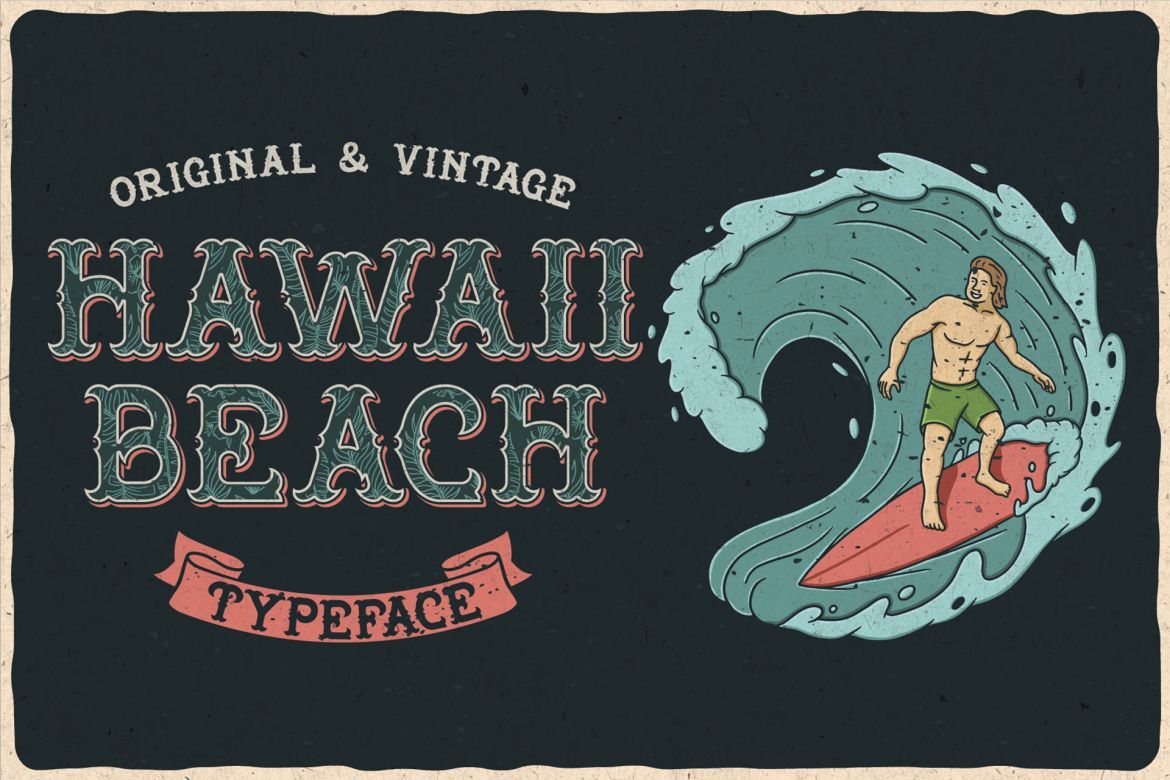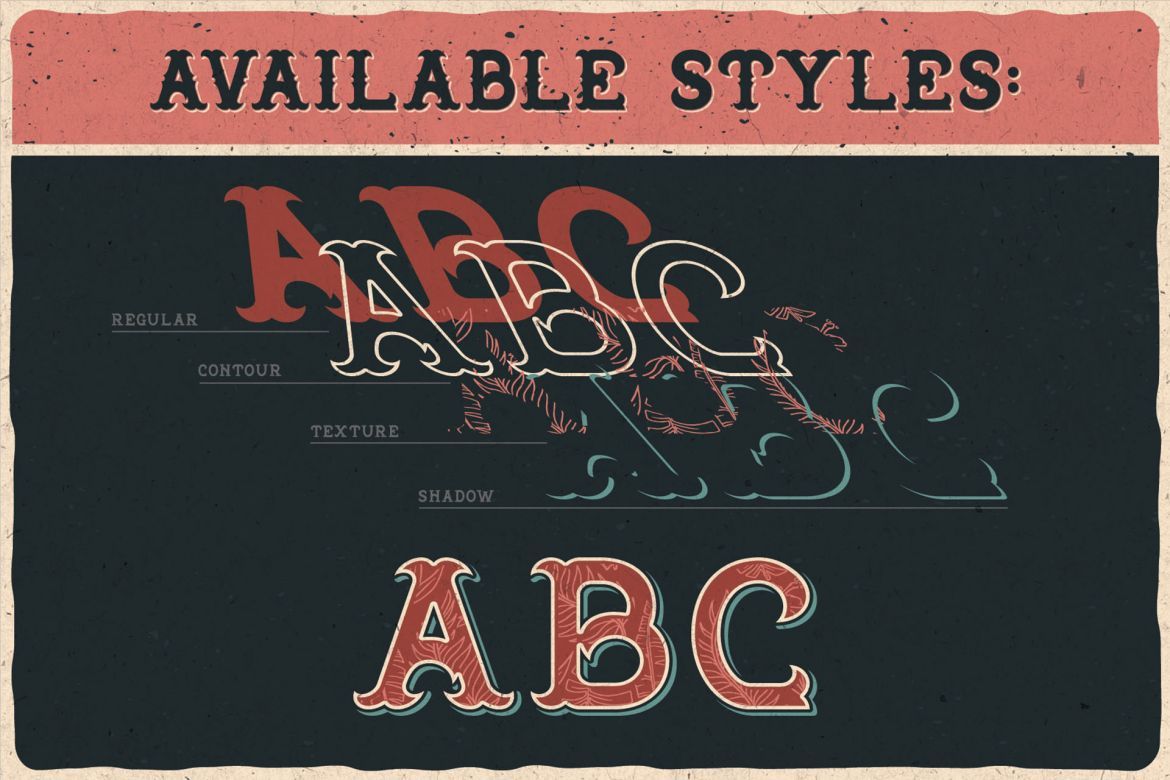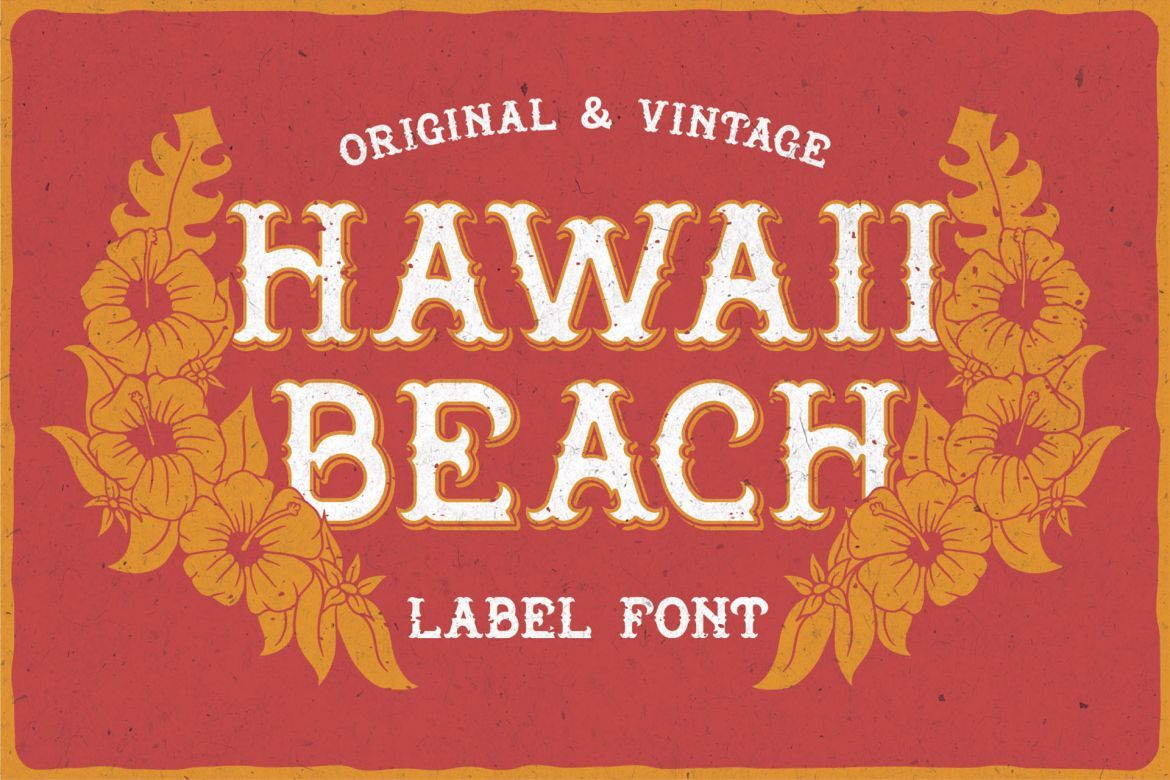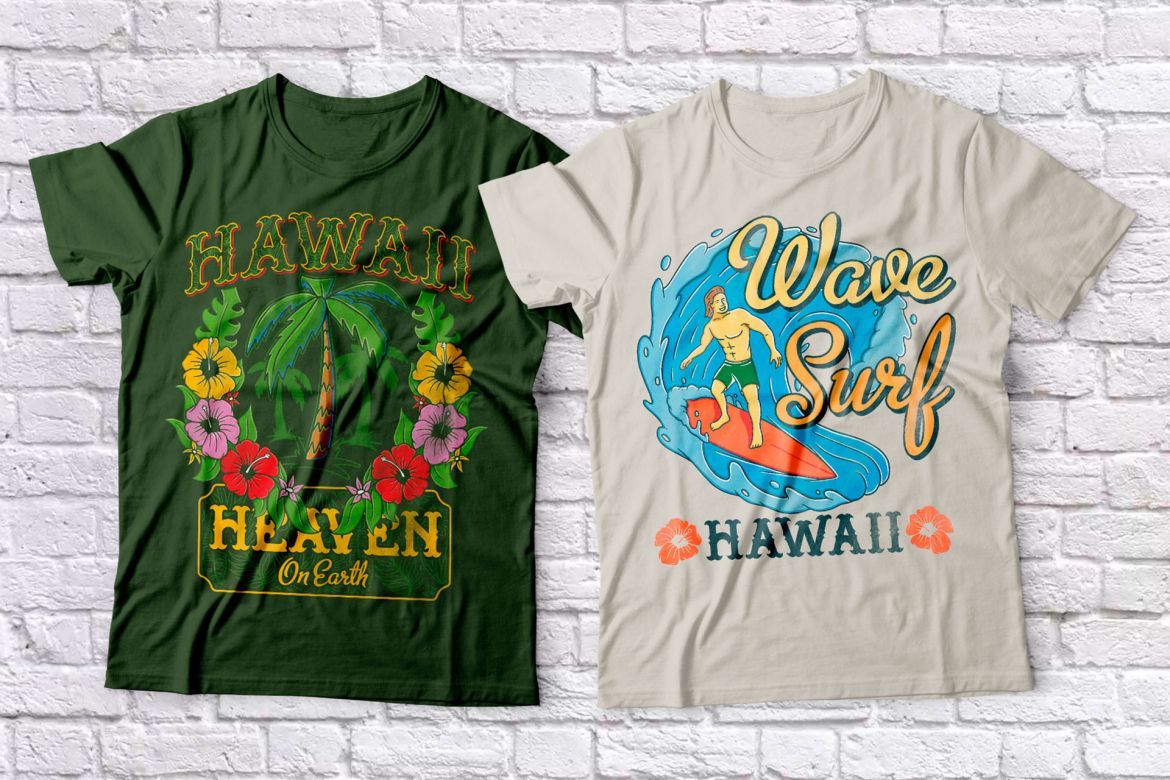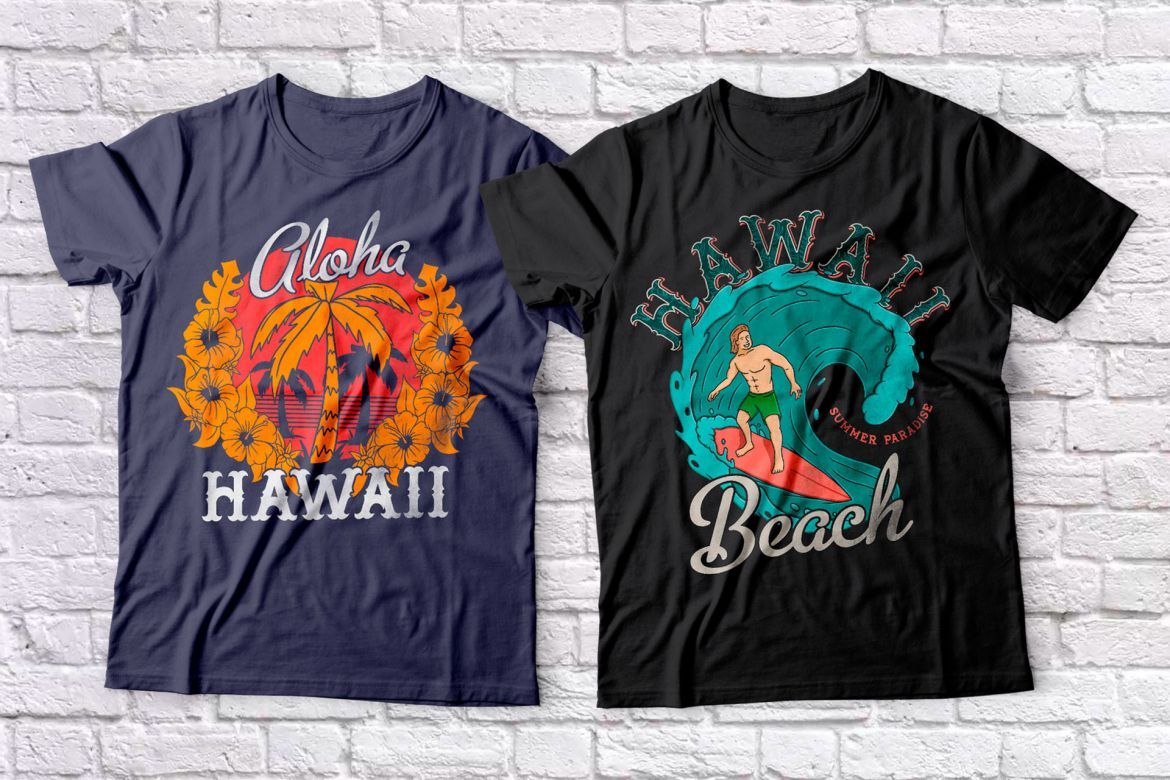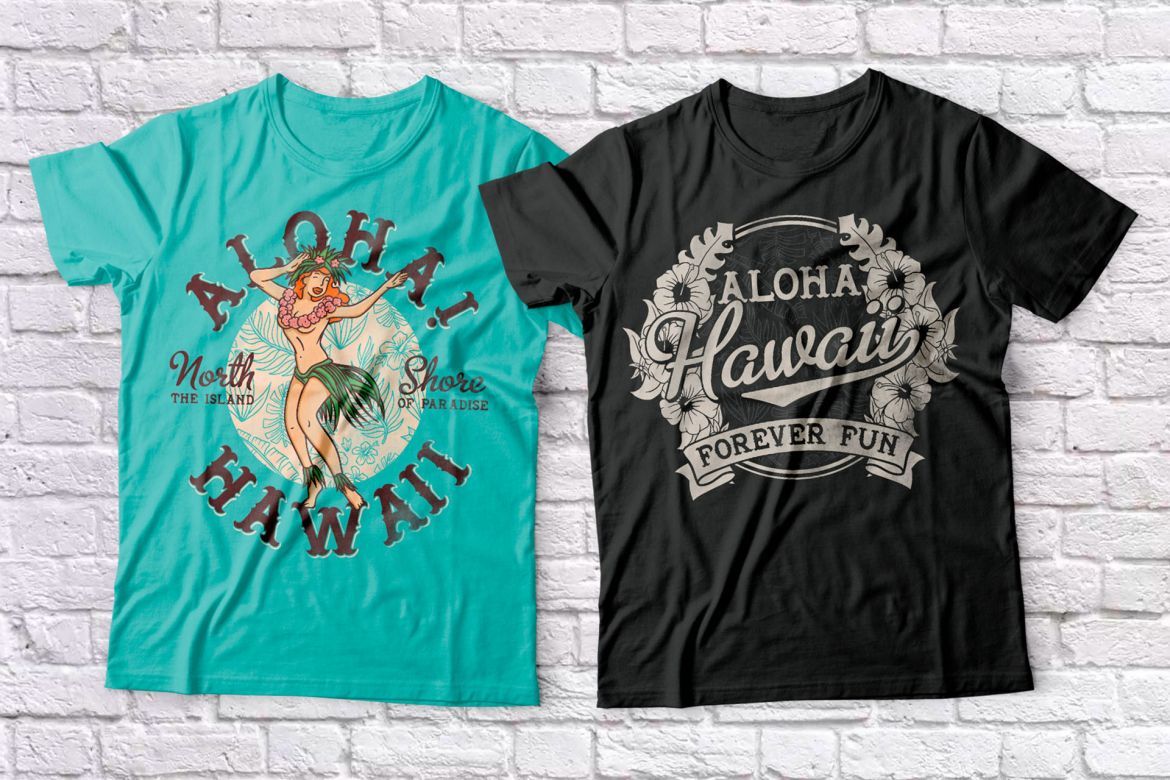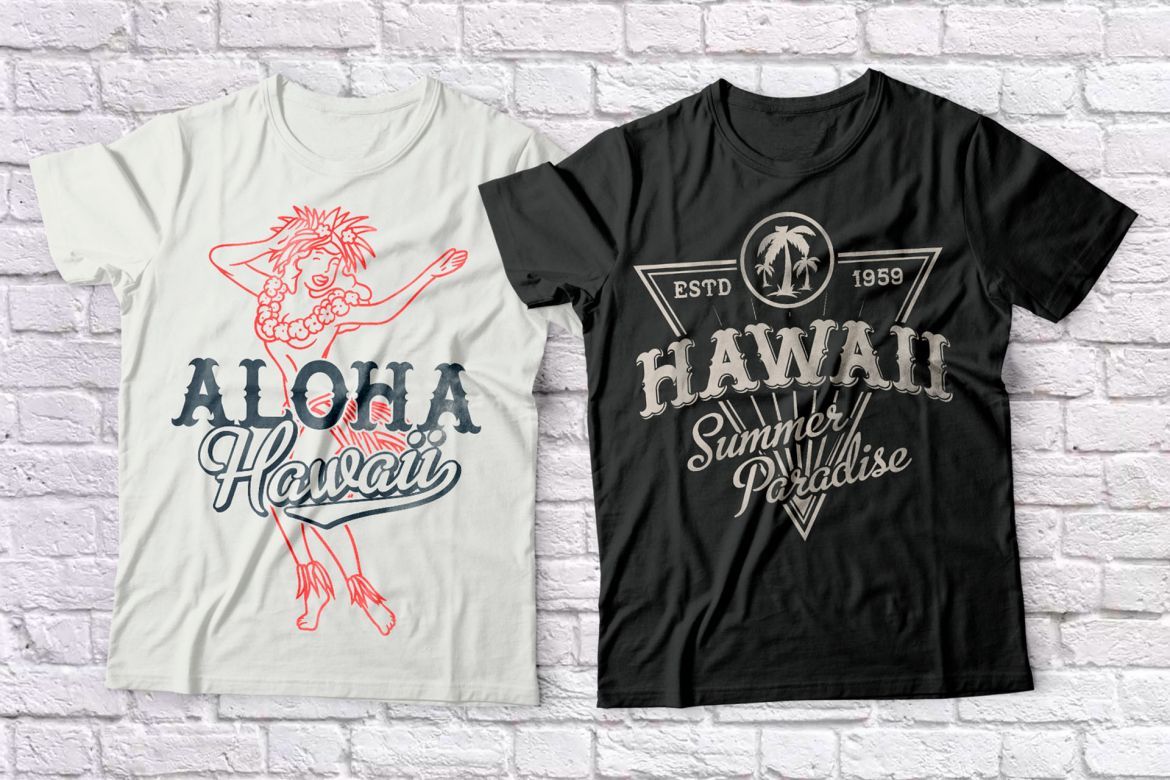
Hawaii Beach Layered Font
Introducing a vintage look label font named "Hawaii Beach". All available characters you can see at the screenshot. This font have 6 styles (including layered shadow effect style). This font will good viewed on any retro design like poster, t-shirt, label, logo etc.
• a lot of additional characters and multilingual support